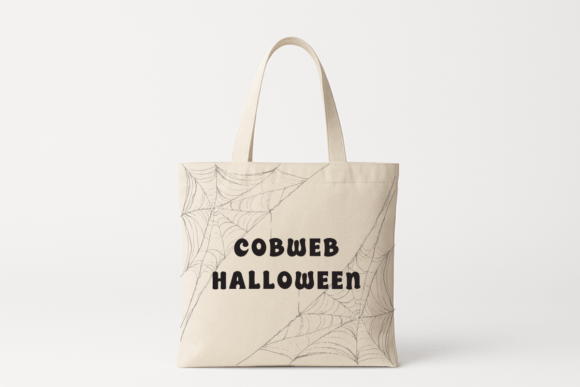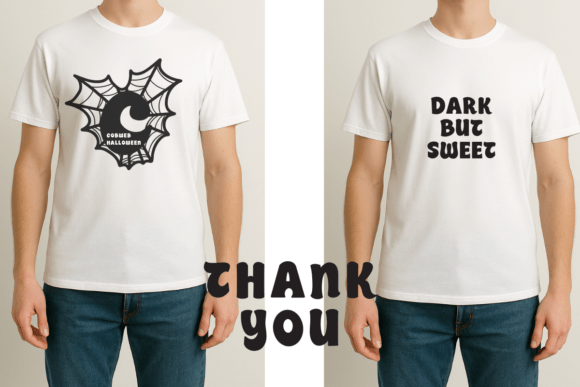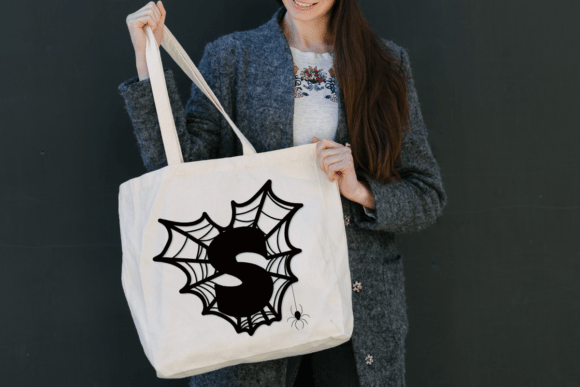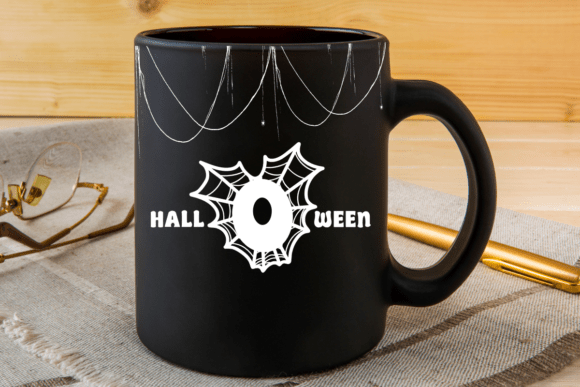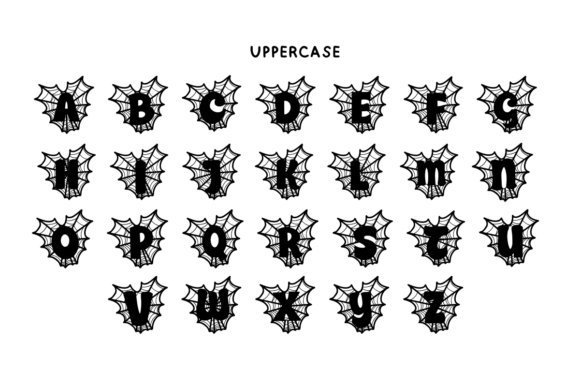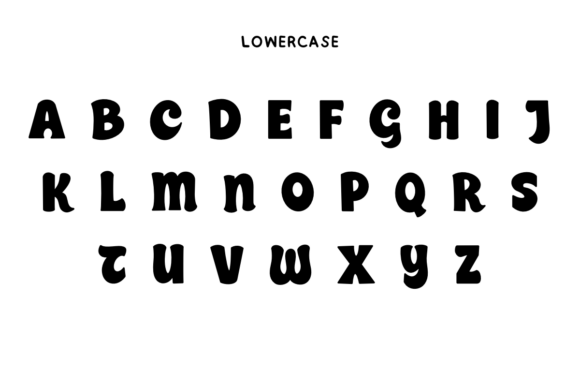
Cobweb Halloween Font: Adding a Touch of Whimsy and Macabre Charm to Your Designs
Are you looking for a font that can add a unique and captivating touch to your designs? Look no further than the Cobweb Halloween font. This eclectic, decorative font is designed to enrich your creative endeavors and bring a touch of whimsy and macabre charm to your projects. In this article, we’ll explore the features and benefits of the Cobweb Halloween font and how it can be used to elevate your designs.
A Font that Casts a Spell
Cobweb Halloween is a font that weaves a magical spell across multiple platforms and projects. Its diverse and multifunctional nature makes it perfect for a wide range of applications, from daily journal entries to greeting card designs, stationery, t-shirts, mugs, and more. With Cobweb Halloween, you are hardly limited. It can be used to add a playful edge to your designs or invoke a haunting allure that leaves a lasting impression.
Adding Artistry to Your Note-Taking Efforts
One of the unique features of the Cobweb Halloween font is its ability to add artistry to your note-taking efforts. Whether you’re a student, a professional, or simply someone who loves to journal, this font can bring a touch of creativity and personality to your daily entries. Imagine being able to turn your mundane to-do lists into works of art that inspire and motivate you. With Cobweb Halloween, you can do just that.
Perfect for Greeting Card Designs
Cobweb Halloween is also perfect for greeting card designs. Whether you’re creating cards for Halloween, birthdays, or other special occasions, this font can add a touch of whimsy and charm that will make your cards stand out. The font’s eclectic and decorative style makes it perfect for creating unique and eye-catching designs that will leave a lasting impression on the recipient.
Multifunctional and Versatile
One of the best things about the Cobweb Halloween font is its multifunctional and versatile nature. It can be used for a wide range of applications, including:
- Social media posts: Use Cobweb Halloween to highlight your social media posts and captivate attention.
- Banners: Create eye-catching banners that will grab the attention of your audience.
- Stationery: Add a touch of whimsy and charm to your stationery designs.
- T-shirts and apparel: Create unique and eye-catching designs for t-shirts and other apparel.
- Mugs and ceramics: Add a touch of personality to your mug and ceramic designs.
Why Choose Cobweb Halloween?
So why choose Cobweb Halloween over other fonts? Here are just a few reasons:
- Unique and eye-catching: Cobweb Halloween is a unique and eye-catching font that will make your designs stand out.
- Multifunctional: The font can be used for a wide range of applications.
- High-quality: The font is high-quality and will look great on any device or medium.
In conclusion, Cobweb Halloween is a font that can add a touch of whimsy and macabre charm to your designs. Its eclectic and decorative style makes it perfect for a wide range of applications, from daily journal entries to greeting card designs, stationery, t-shirts, mugs, and more. With its multifunctional and versatile nature, Cobweb Halloween is a font that will inspire and captivate your audience. So why not give it a try and see the magic it can bring to your designs?
Get Creative with Cobweb Halloween
Ready to get creative with Cobweb Halloween? Here are some tips to get you started:
- Use Cobweb Halloween in combination with other fonts to create unique and eye-catching designs.
- Don’t be afraid to try new things and push the boundaries of what’s possible with Cobweb Halloween.